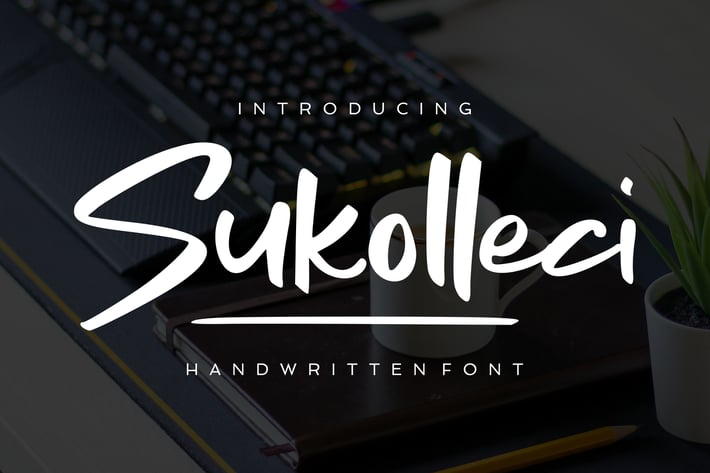
Sukolleci - Handwritten Font
Sukolleci - Handwritten Font with a calligraphy style, So beautiful on invitation like greeting cards, branding materials, business cards, quotes, posters, and more!